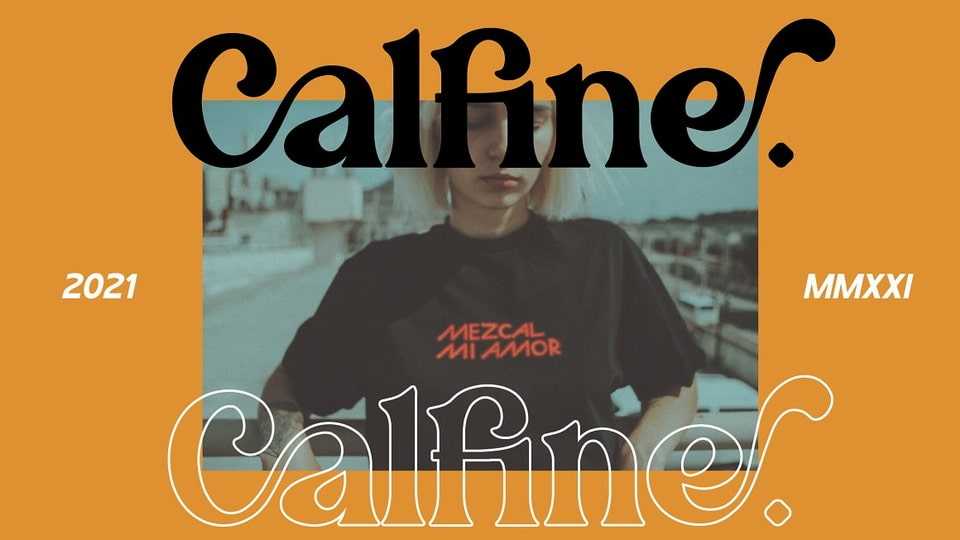
Download Calfine font, a luxurious and beautiful serif typeface. Calfine looks lovely on a variety of designs requiring a personalized style, such as wedding invitations, thank you cards, weddings, greeting cards, logos and so on.